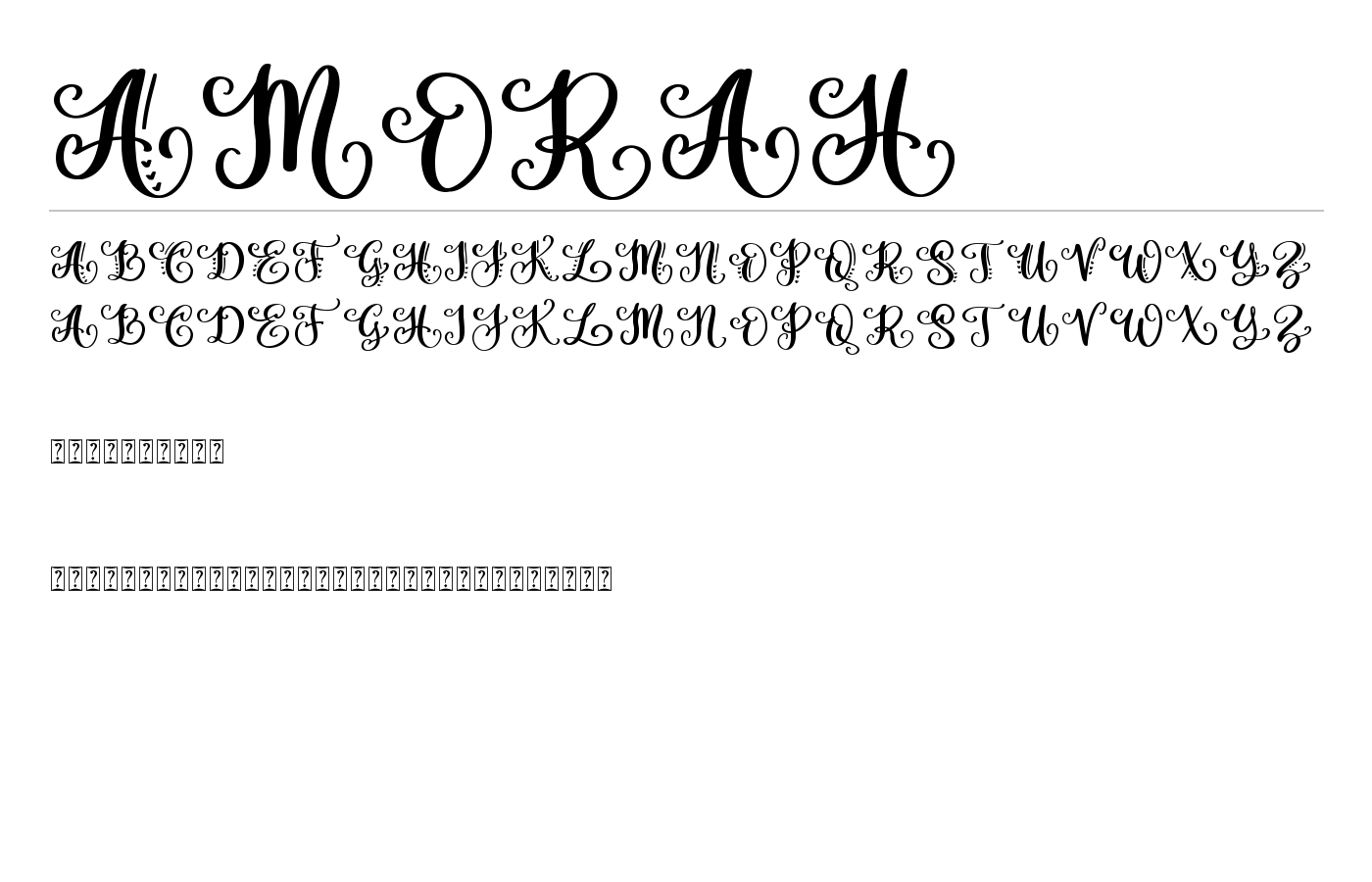
Amorah is an elegant script font characterized by its flowing, ornate swashes and decorative flourishes, creating a romantic and whimsical feel. Its medium weight and moderately high contrast strokes make it perfect for adding a touch of sophistication to wedding invitations, branding, and feminine design projects. This font shines in headlines and decorative text where a graceful, luxurious aesthetic is desired.
Amorah Font